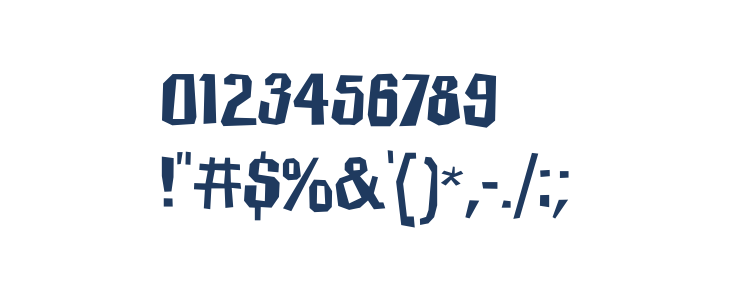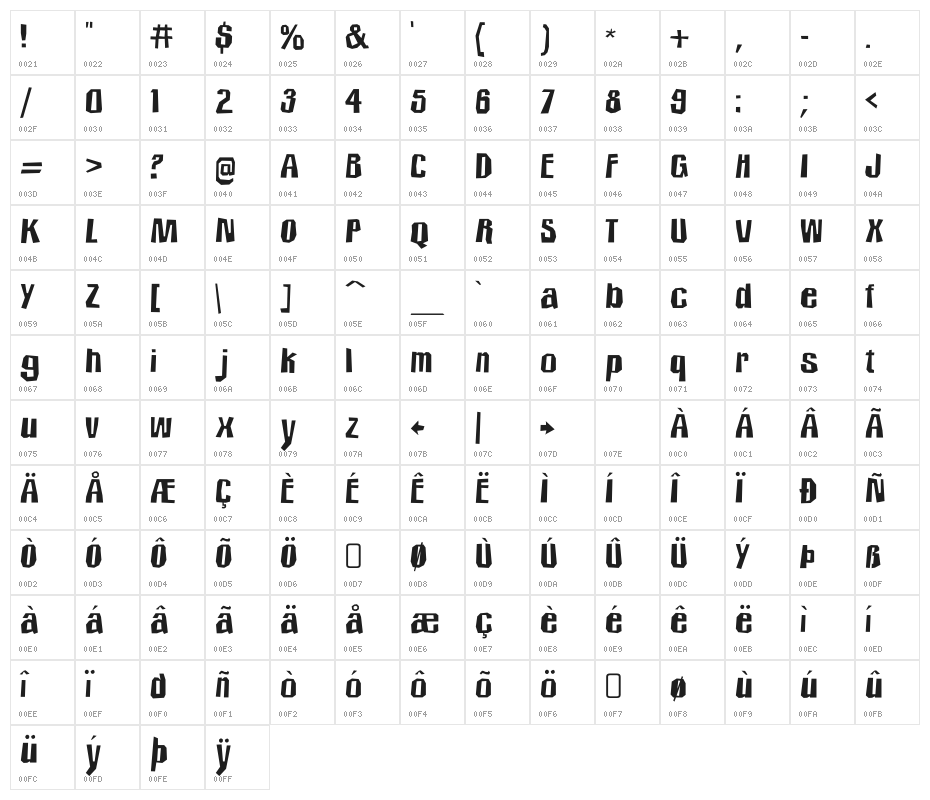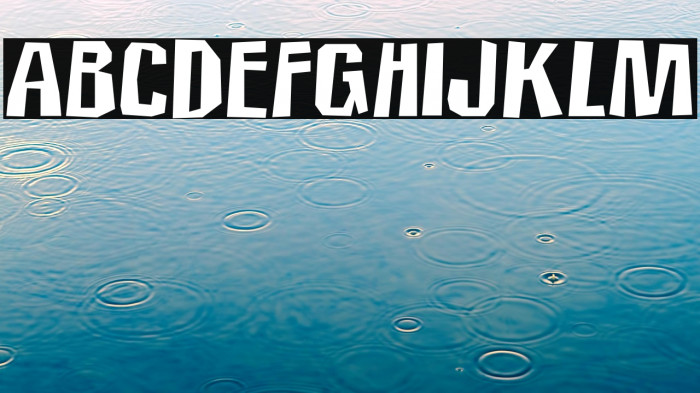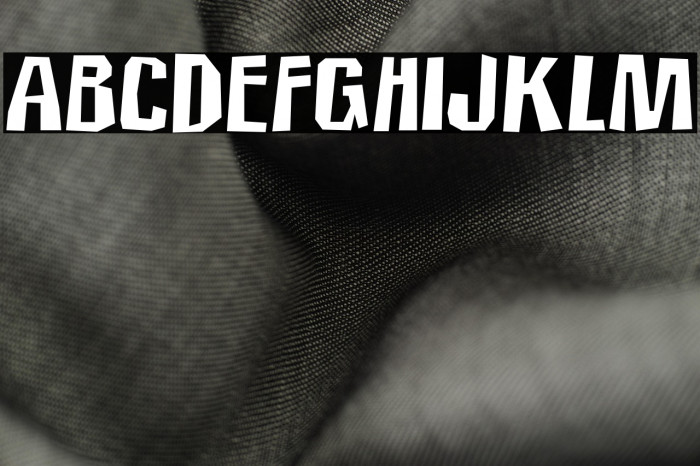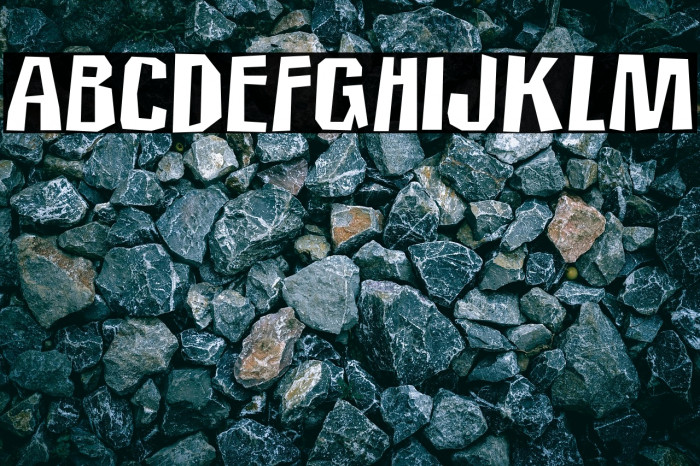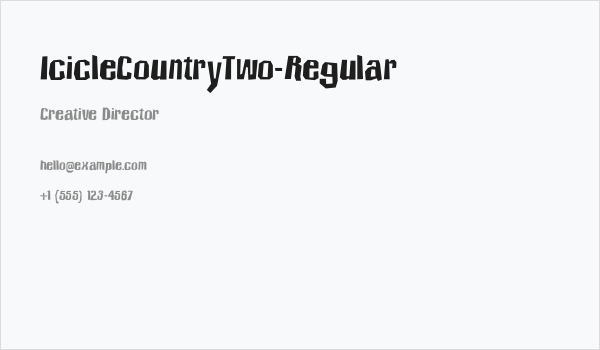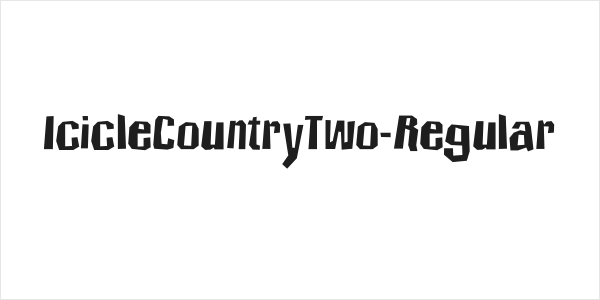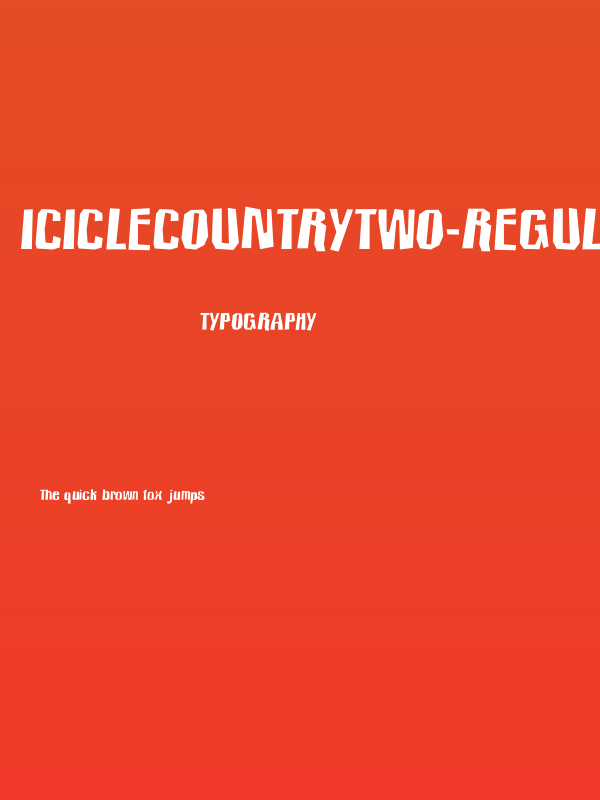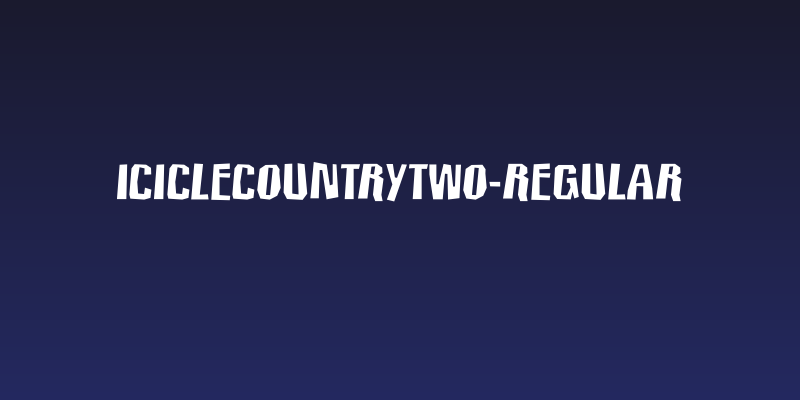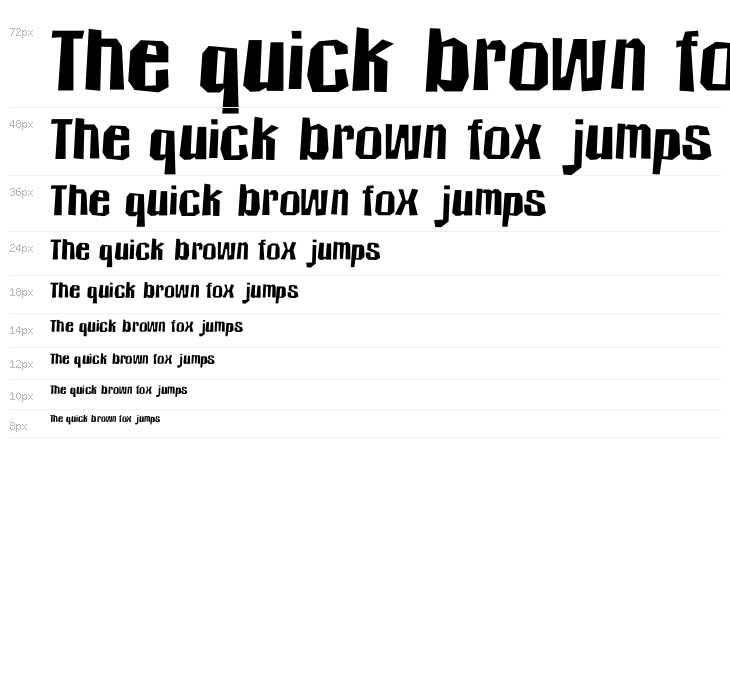
IcicleCountryTwo-Regular Font
IcicleCountryTwo-Regular Description
This font features a bold and angular design, with each character exhibiting a sharp, geometric style. The uppercase letters are particularly striking, with a strong presence that commands attention. The lowercase letters maintain the same angular aesthetic, creating a cohesive look across the typeface. Numbers and special characters are designed with the same boldness, ensuring consistency throughout. The overall appearance is dynamic and modern, making it suitable for impactful design projects.
| Proposed Projects | Ideal for posters, headlines, branding, and any project requiring a strong visual impact. |